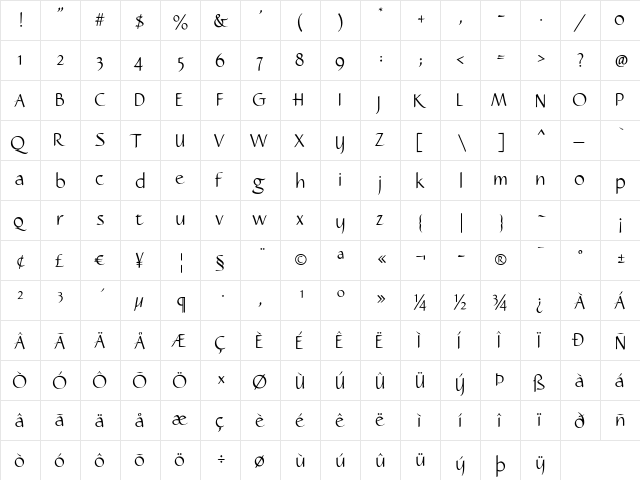
Caterina Lt Light
Design Context for Caterina Lt Typeface
Caterina Lt offers clean, dependable letterforms without strong stylistic allegiance, making it a practical choice for designers who need flexibility. Its slender proportions lend an understated elegance to any composition.